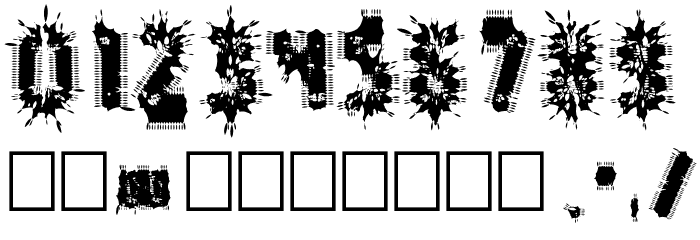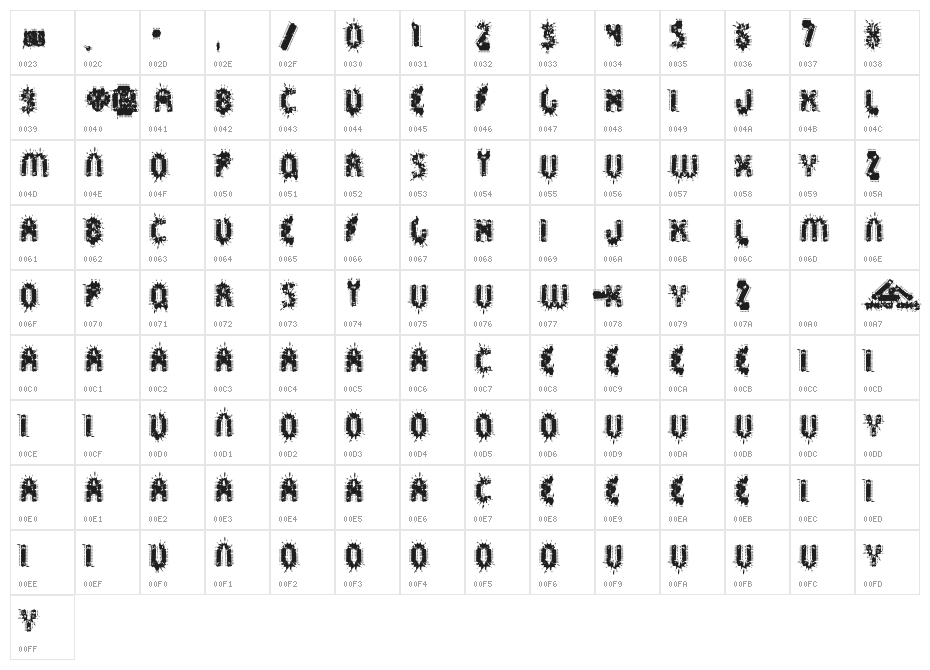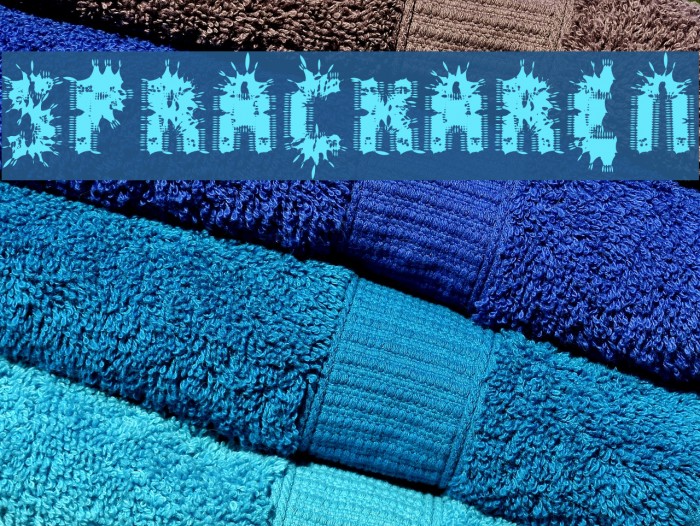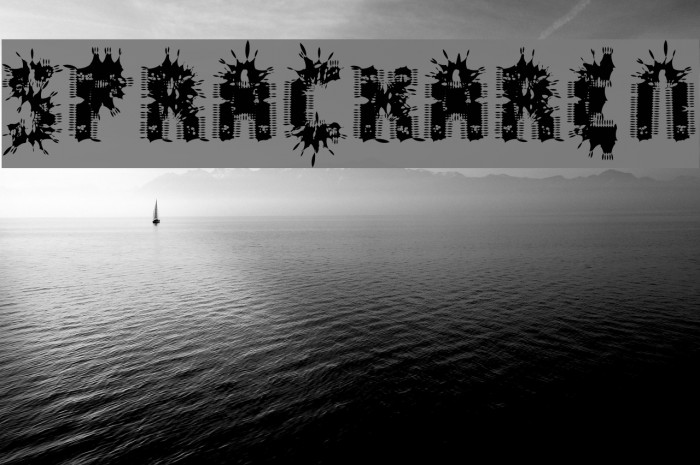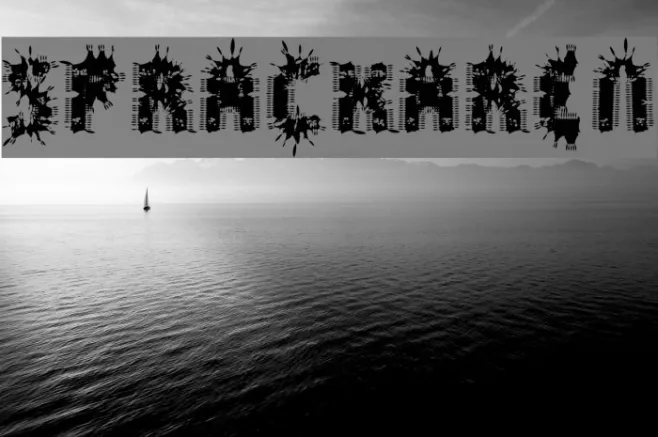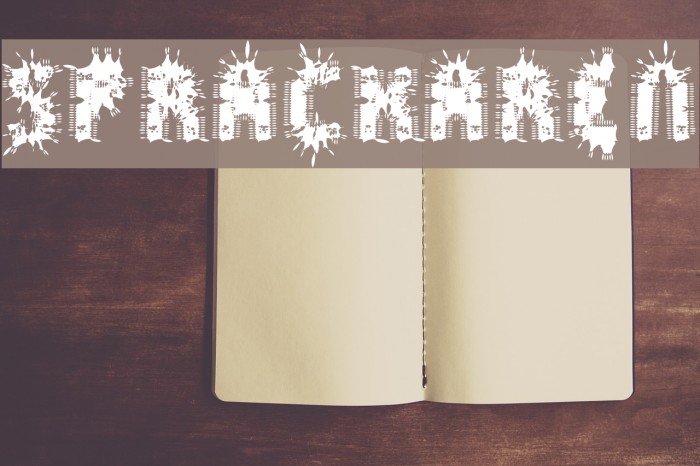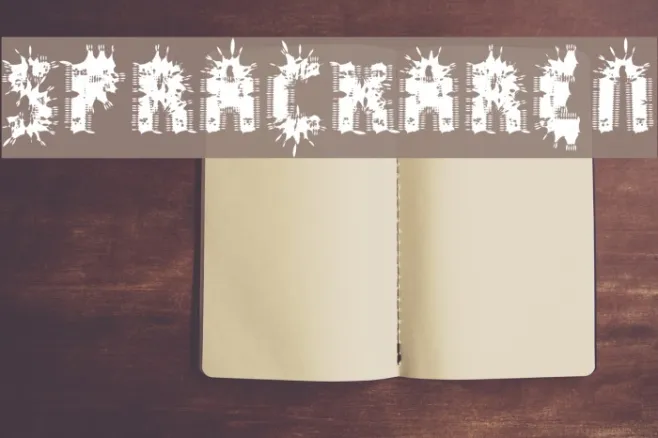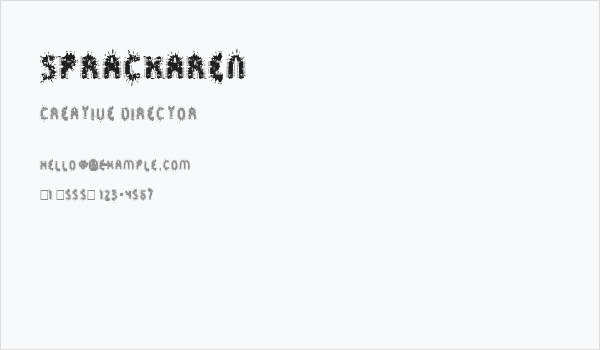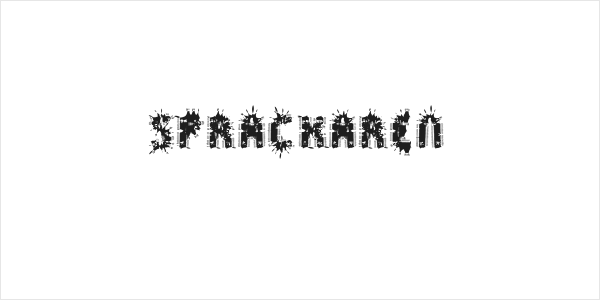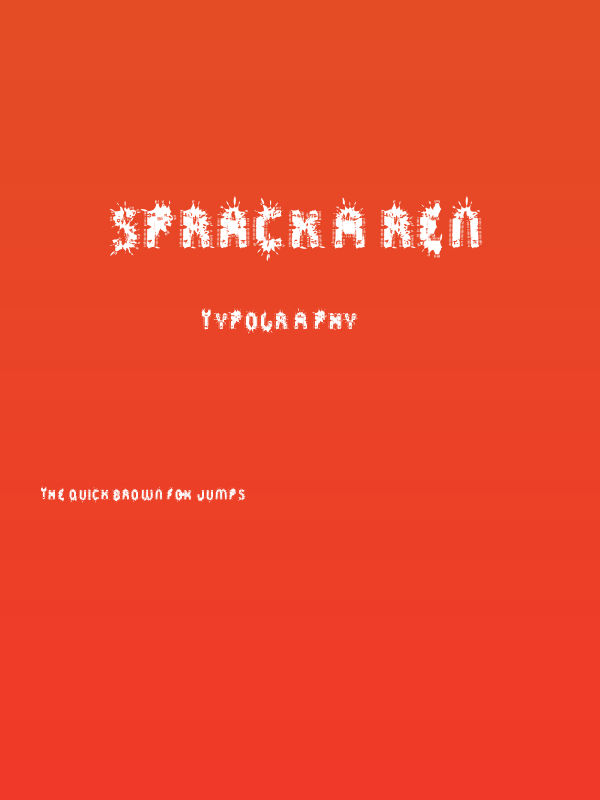
Spräckaren Font
Spräckaren Description
This font is a bold and dynamic display typeface characterized by its explosive and splattered appearance. Each character seems to burst outward with energy, featuring jagged edges and irregular shapes that create a sense of chaos and movement. The design is highly decorative, with a unique texture that resembles ink splatters or digital glitches. This font is not suitable for body text due to its intricate details and high visual impact, but it excels in grabbing attention and making a statement.
| Proposed Projects | Ideal for use in posters, album covers, video game graphics, and any project requiring a bold, eye-catching typeface. |